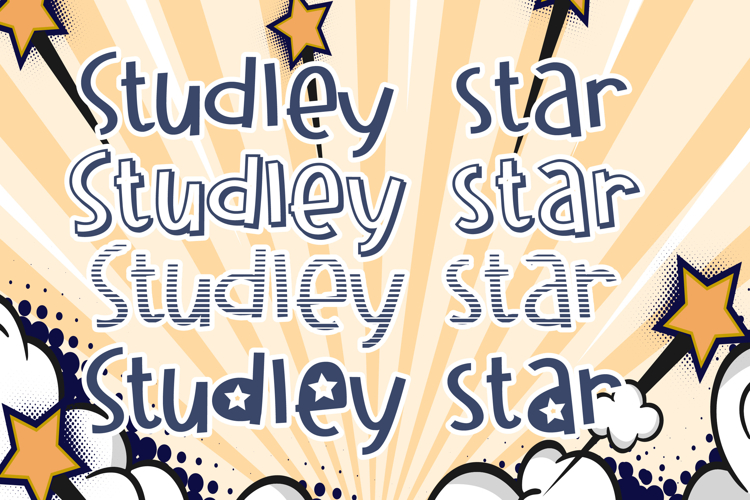
Studley Star Font Family
This hand-crafted font is a crafty sans serif family with some members sporting stripes, some outlines, and some sport stars.